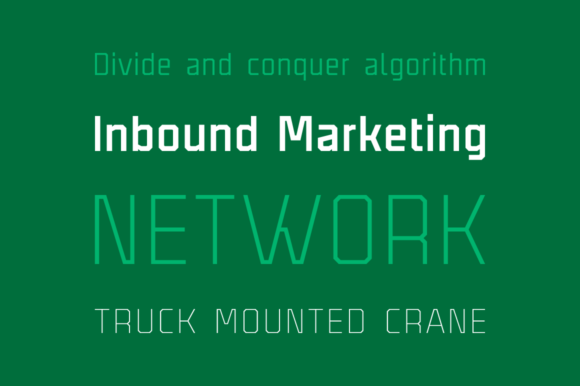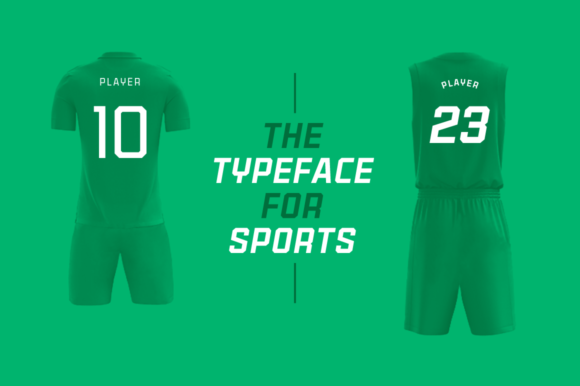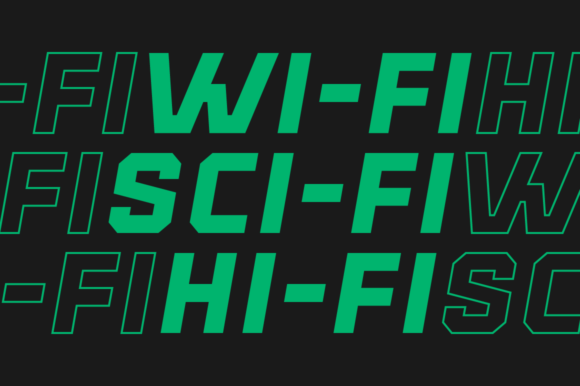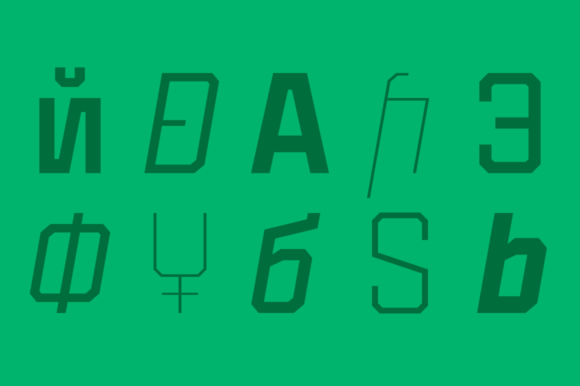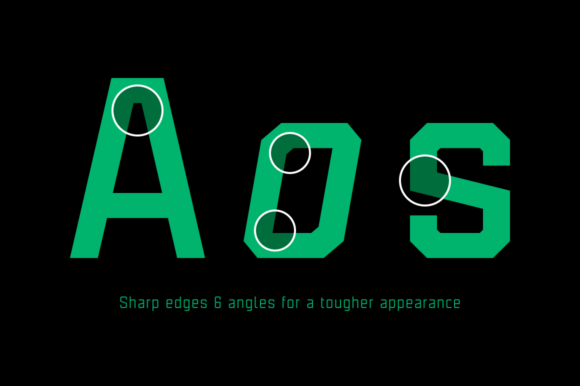
Designing for the Future: Binaria Family Font Takes Center Stage
Enter Binaria Family Font, a sans serif powerhouse designed by Pablo Balcells for Graviton Font Foundry in 2018. This striking font family is tailor-made for logos, headlines, and display design pieces, as well as short-length text blocks. With 12 styles to choose from, each featuring small caps and glyph coverage for several languages, Binaria Family Font offers endless possibilities for designers looking to add a touch of futurism to their work.
Binaria Family Font Key Features
- Font Family: Binaria is a sans-serif font family with multiple styles, including Thin, Light, Regular, Medium, Bold, and Black.
- Unique Characteristics: Binaria features a clean, modern design with a focus on readability and versatility, making it suitable for a wide range of applications, including corporate branding, digital interfaces, and print materials.
- Language Support: Supports a wide range of languages, including Latin, Cyrillic, and Greek alphabets, as well as many non-Latin scripts.
Binaria Family Font Review
Overall, I think the Binaria Family Font has some great qualities, but it also has some limitations that might make it less suitable for certain projects. ✨ Let’s start with the good stuff.
- Modern and sleek aesthetic that’s perfect for tech-related projects or modern websites.
- The font family includes a wide range of weights and styles, making it versatile and easy to use.
- The font is highly legible, even at small font sizes.
- The font supports a wide range of languages, making it a great choice for international projects.
However, there are some limitations that might make you think twice about using the Binaria Family Font.
- Some users have reported that the font can look a bit bland or generic in certain contexts.
- The font doesn’t have a strong personality or unique character, which might make it less memorable.
- The font can be a bit too modern or trendy, which might make it look dated in a few years.
Overall, I think the Binaria Family Font is a solid choice for projects that need a modern and sleek look. However, it might not be the best choice for projects that need a lot of personality or uniqueness.
Tips for Getting the Most Out of the Binaria Family Font
Here are a few tips to help you get the most out of the Binaria Family Font:
- Use the font in conjunction with high-quality images to create a visually appealing design.
- Experiment with different font sizes and styles to add emphasis to your text.
- Use the font in a variety of contexts, such as headings, body text, and captions.
- Corporate branding and identity
- Marketing materials,